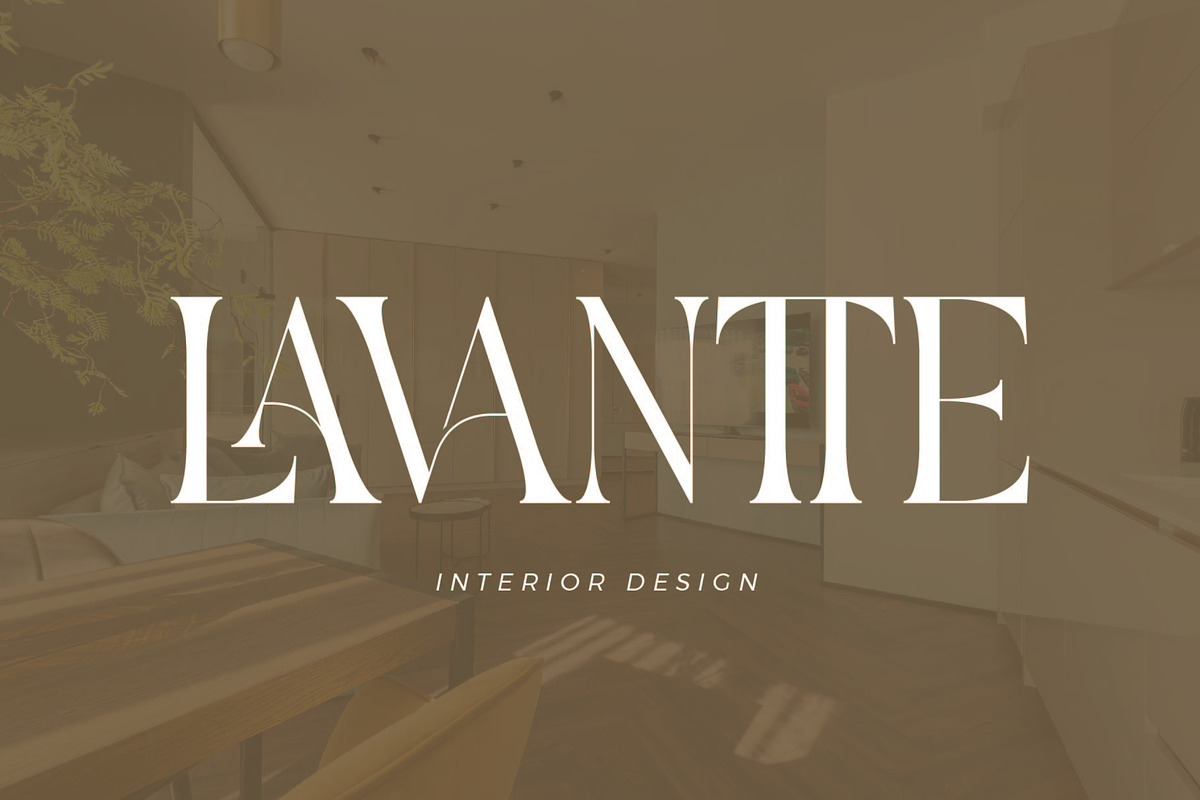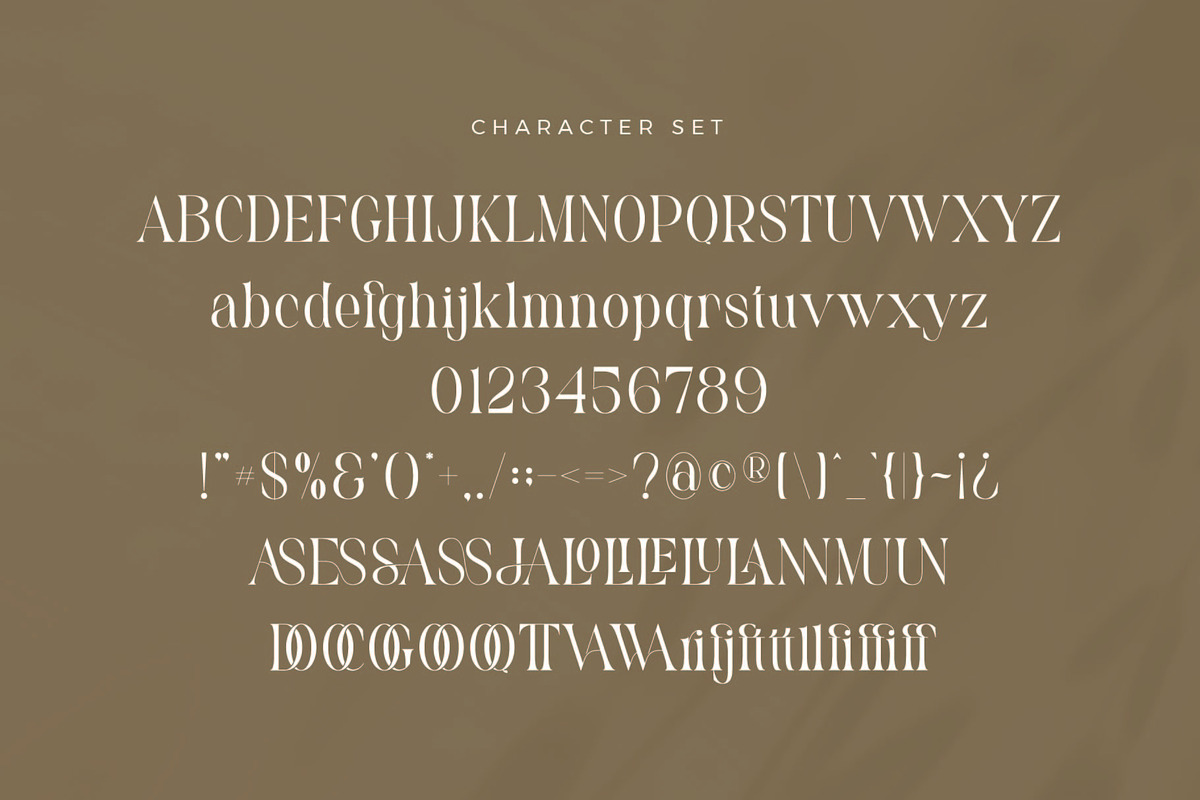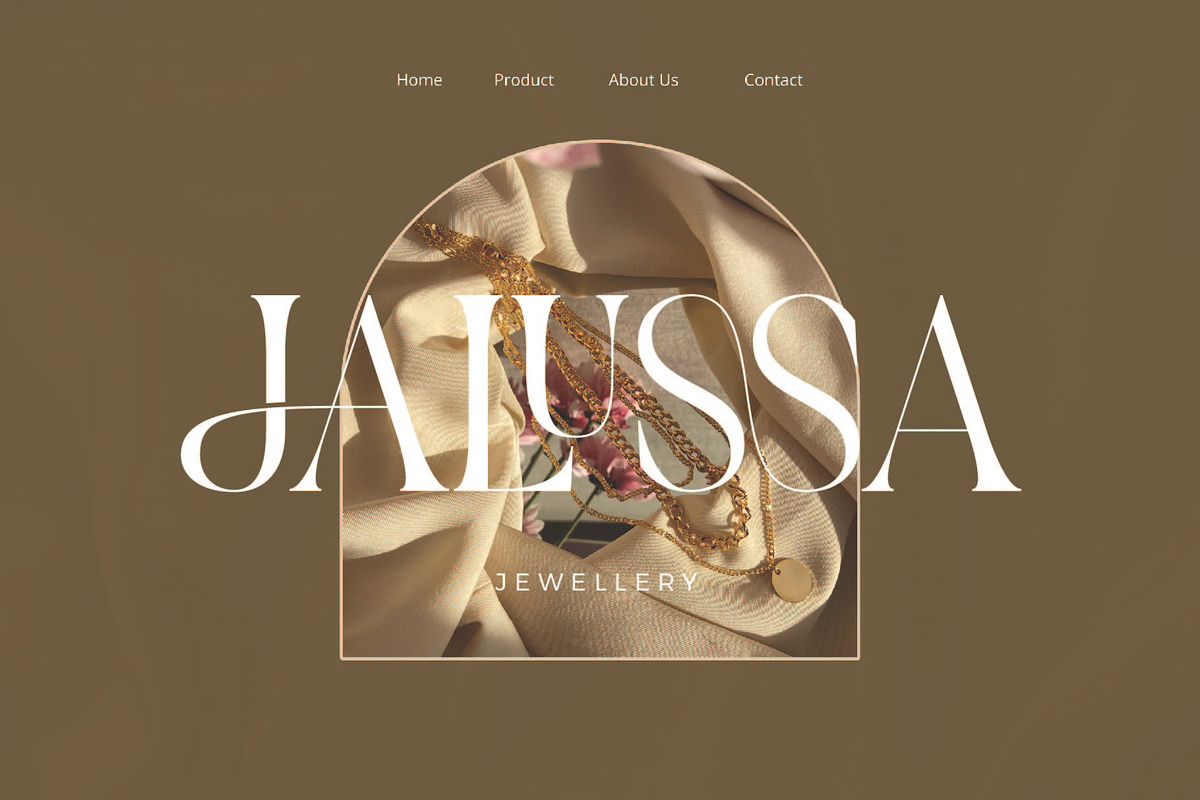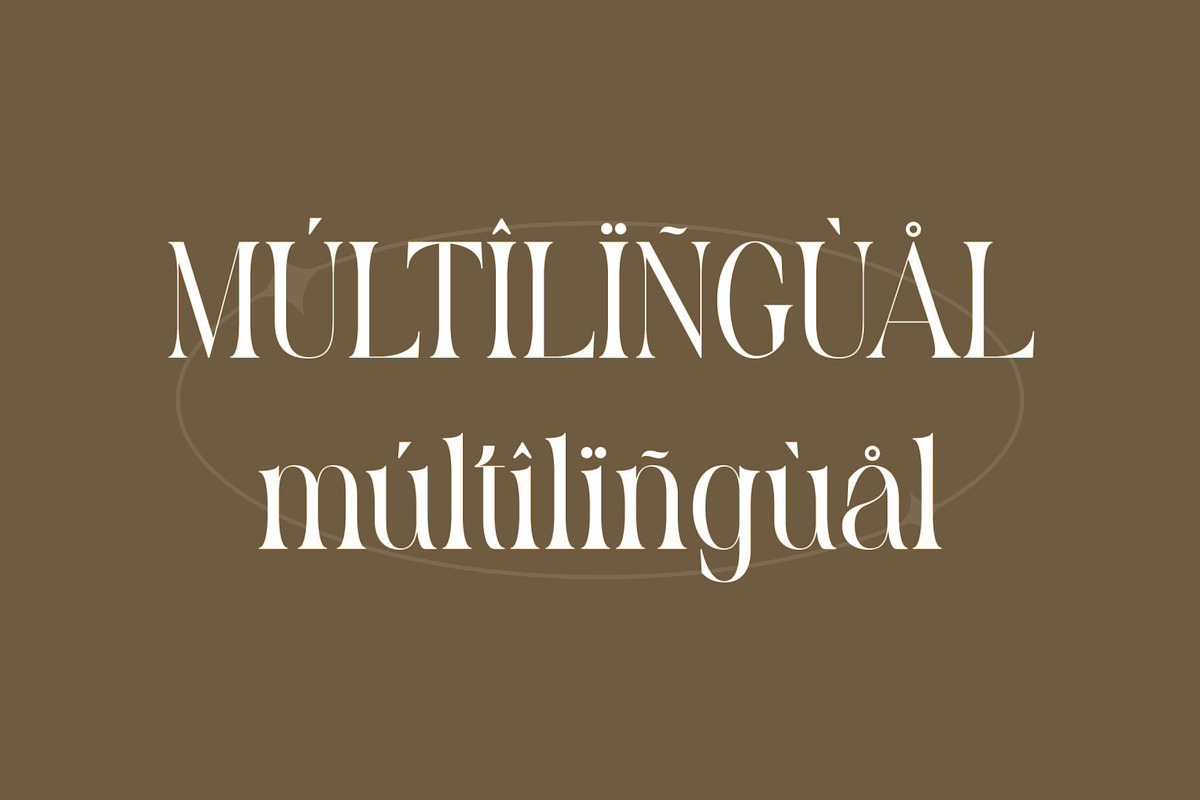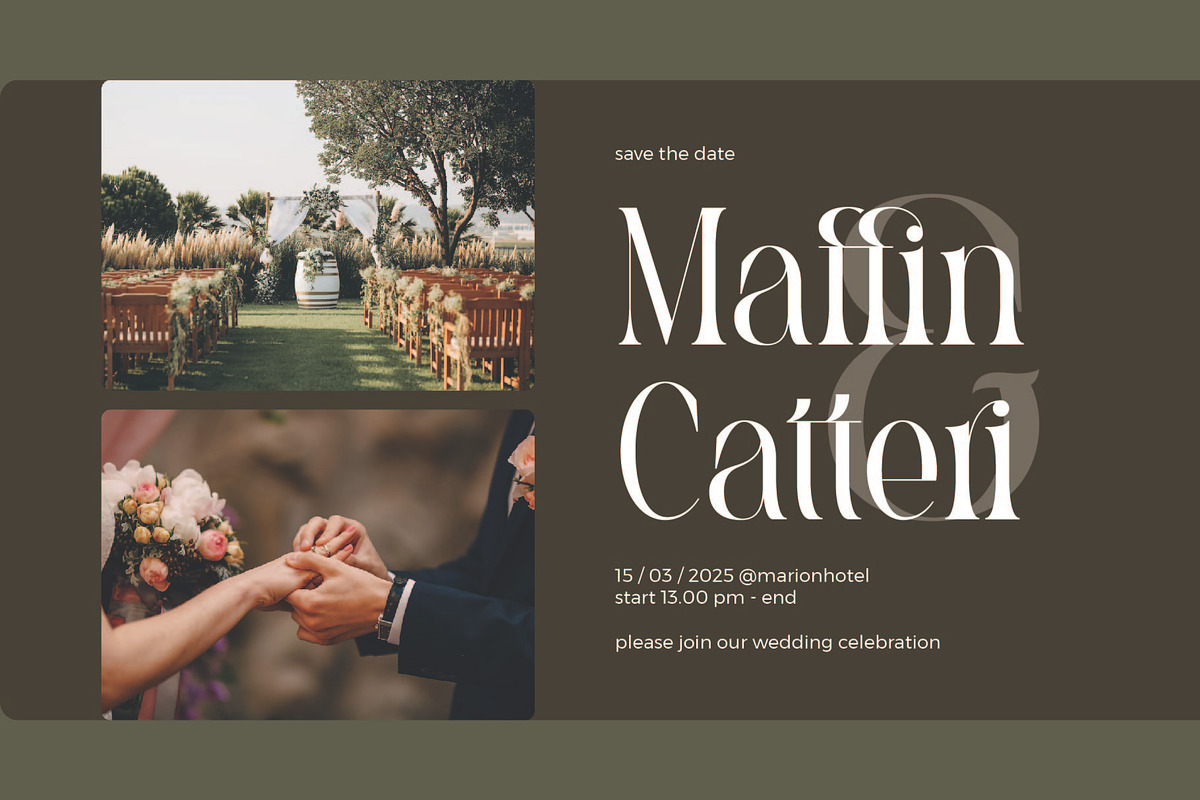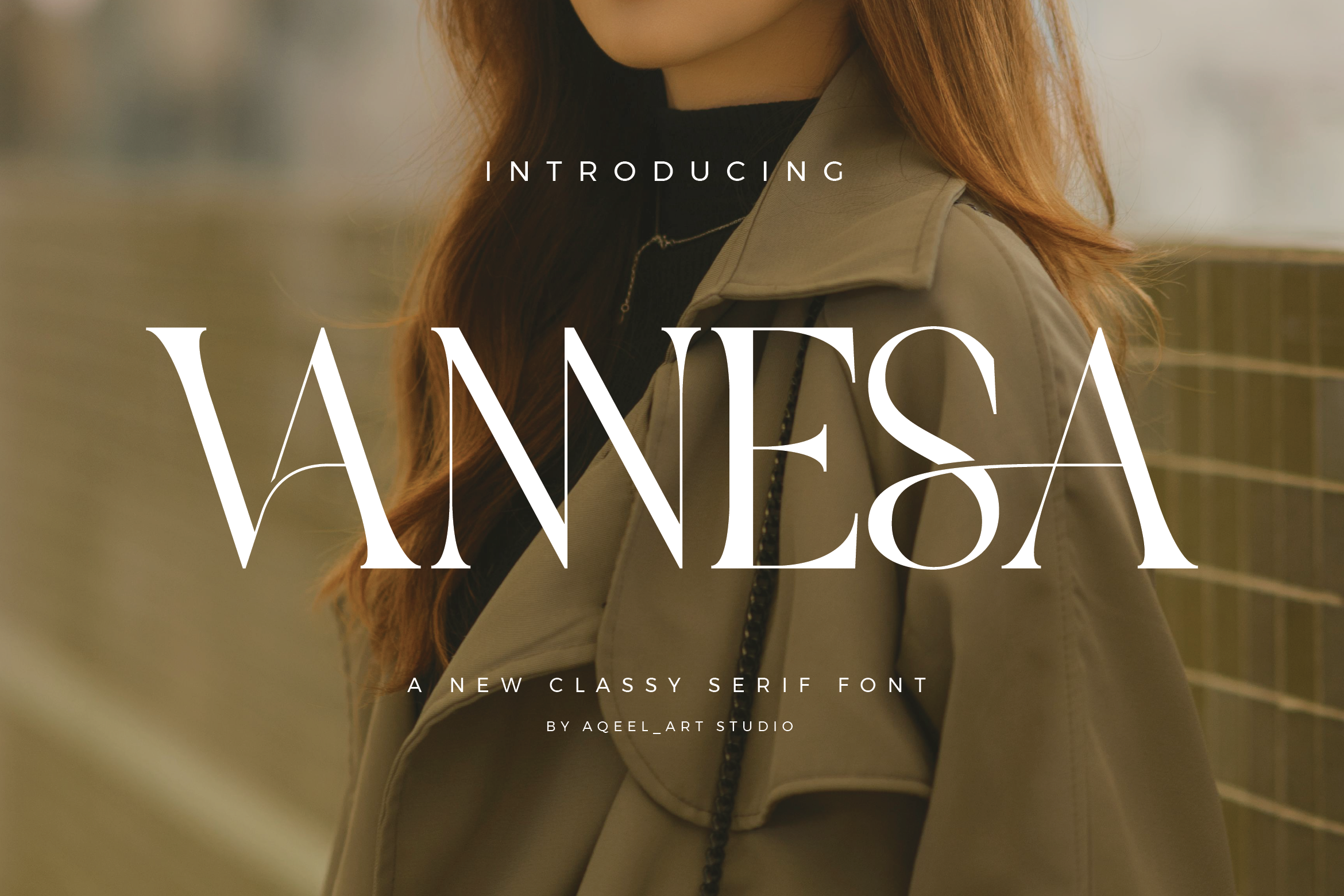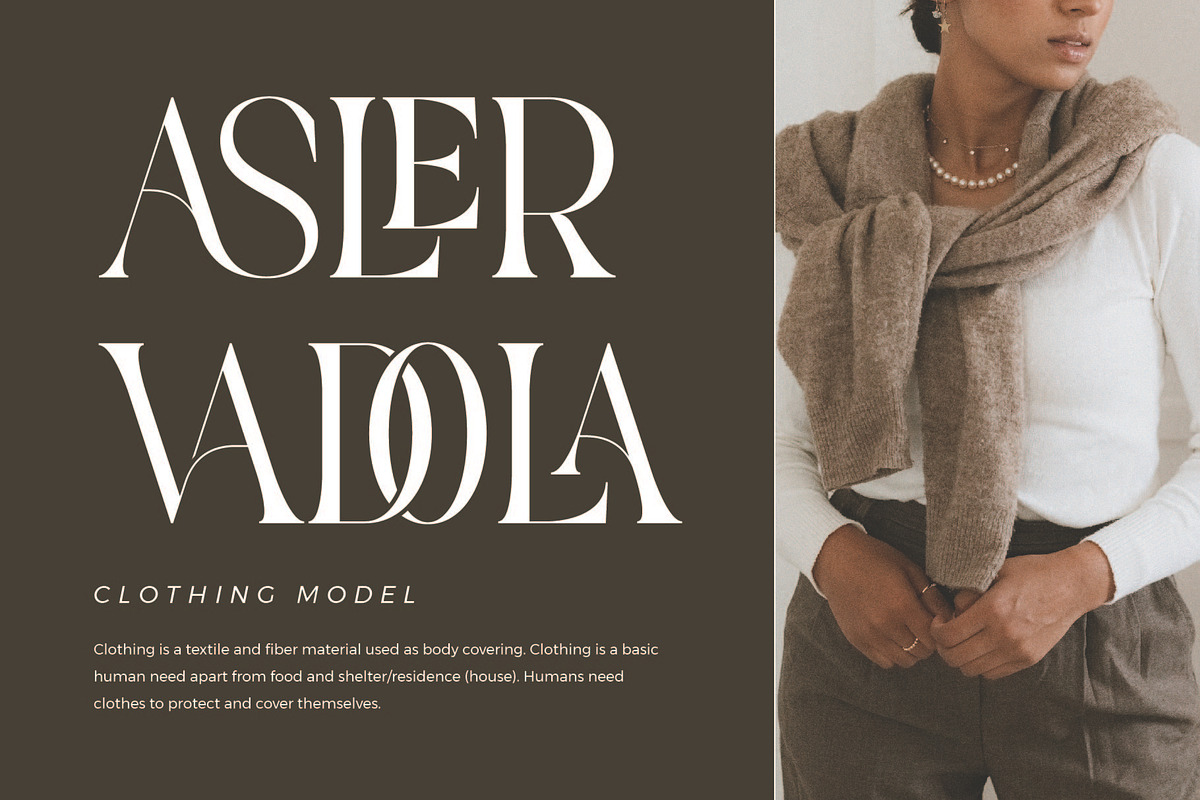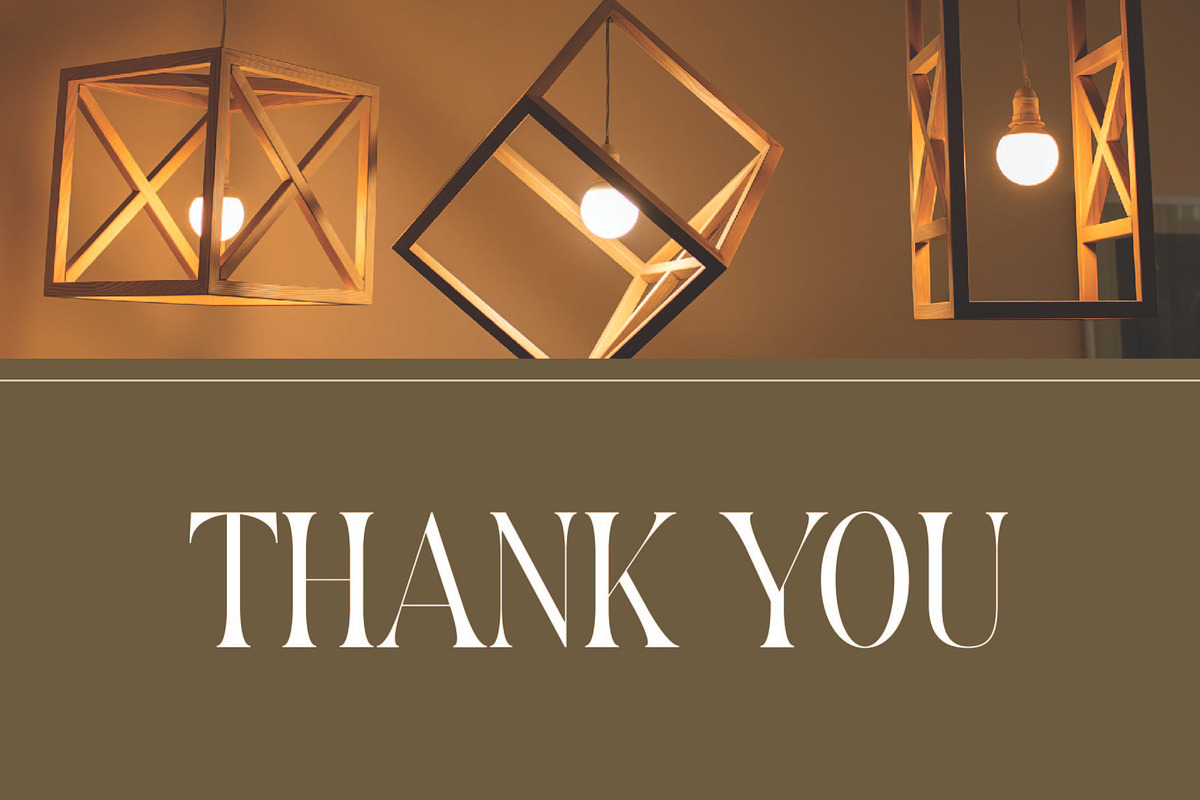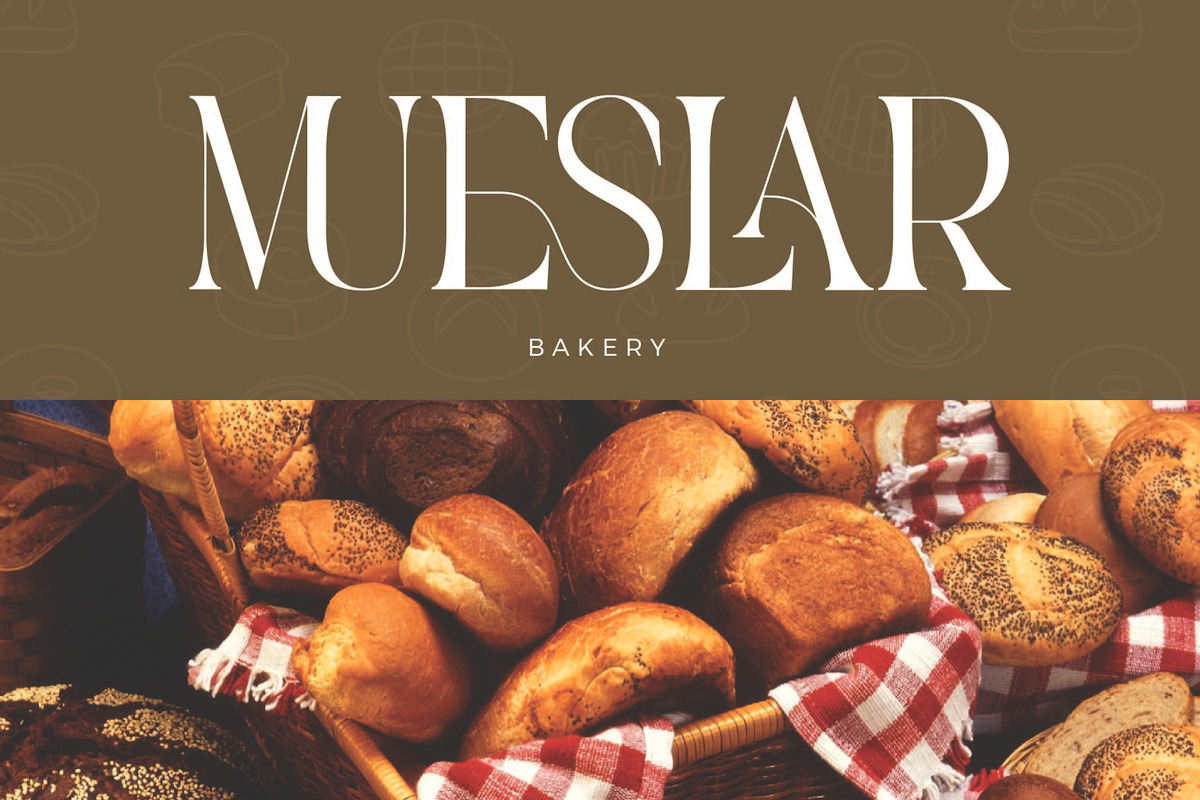
Vannesa - Classy Serif Font
Vannesa Stylish Ligature Typeface, inspired by the famous minimalist logo perfect for the purposes of designing templates, brochures, videos, advertising branding, logos and more.